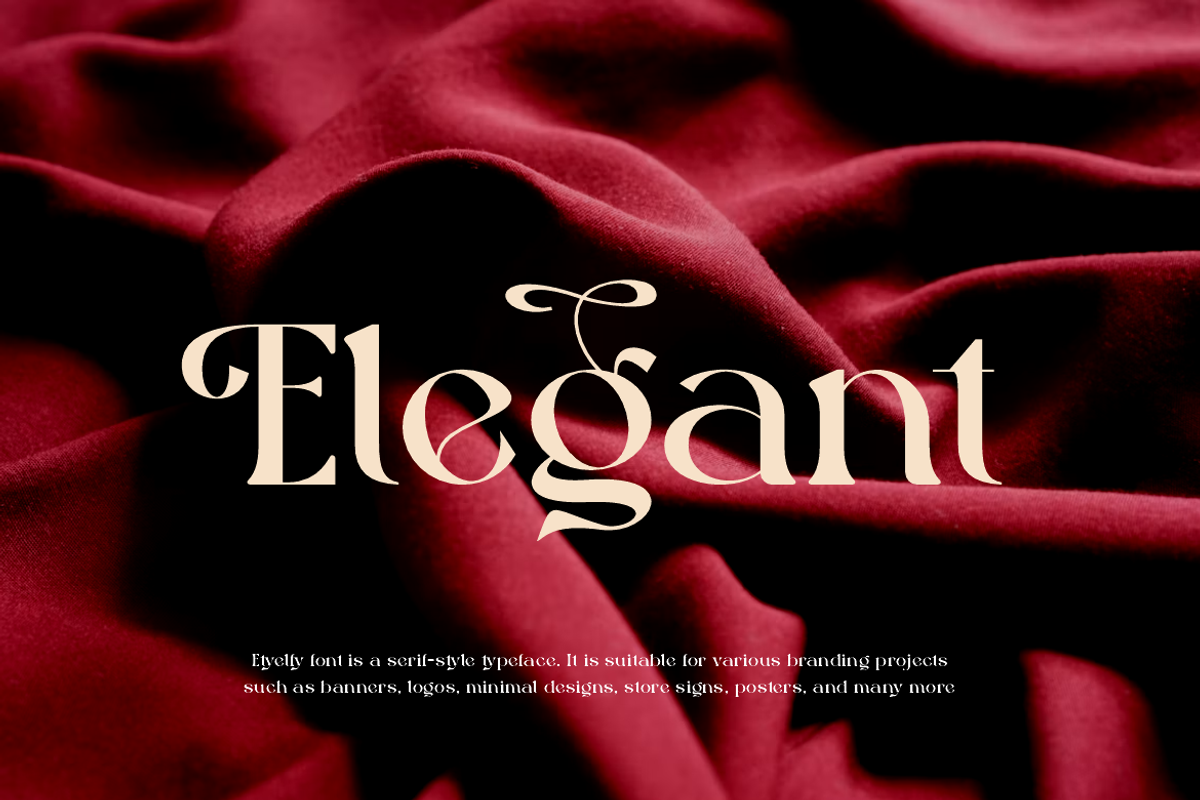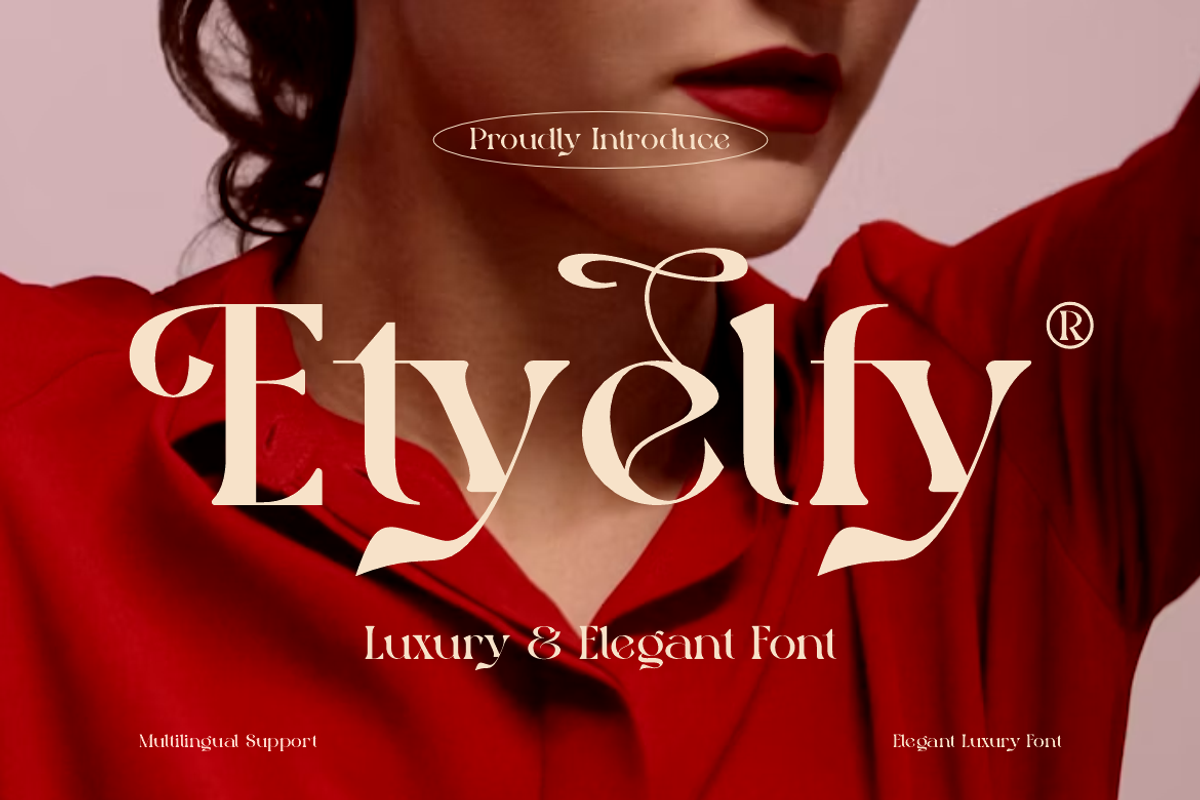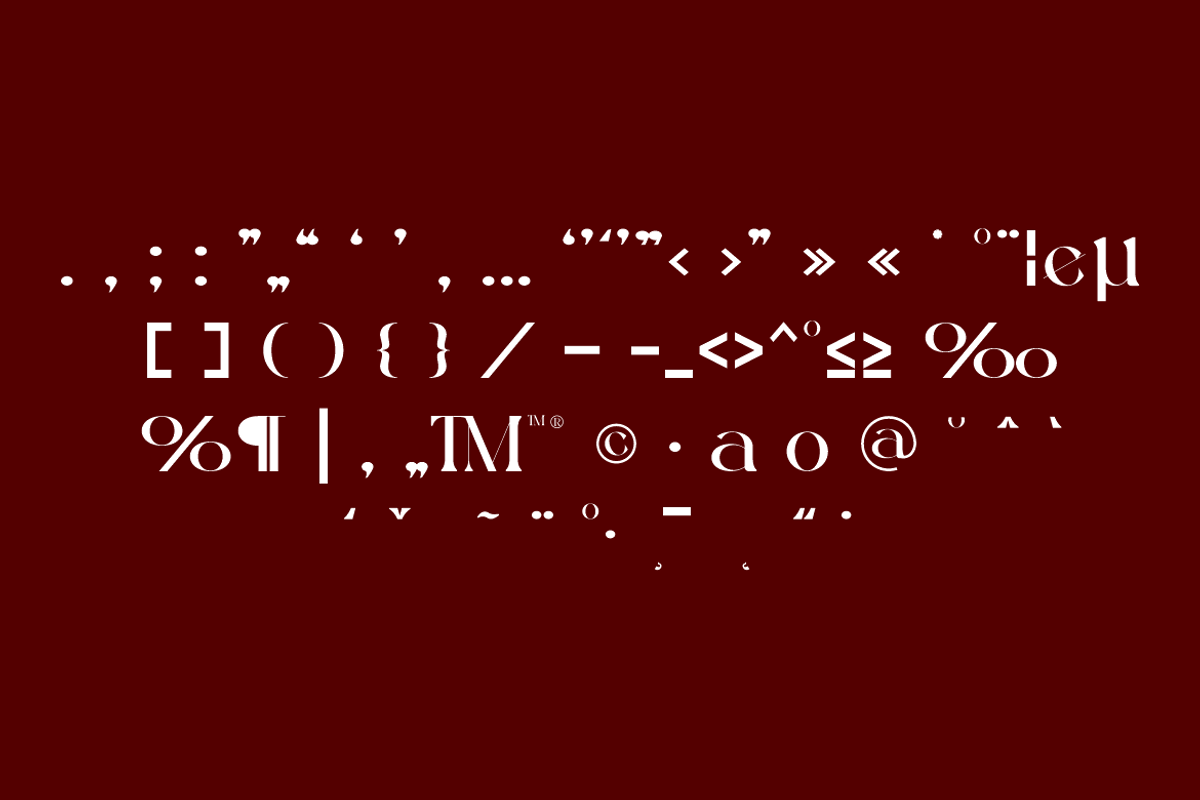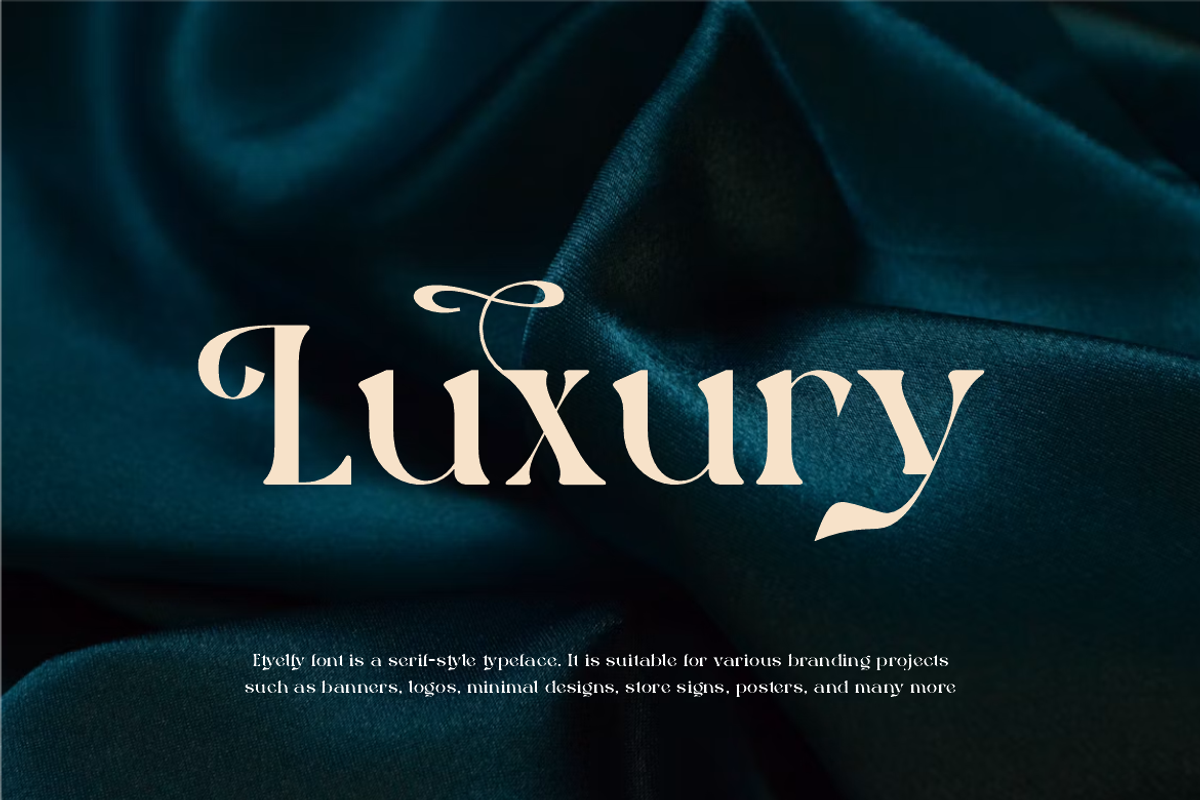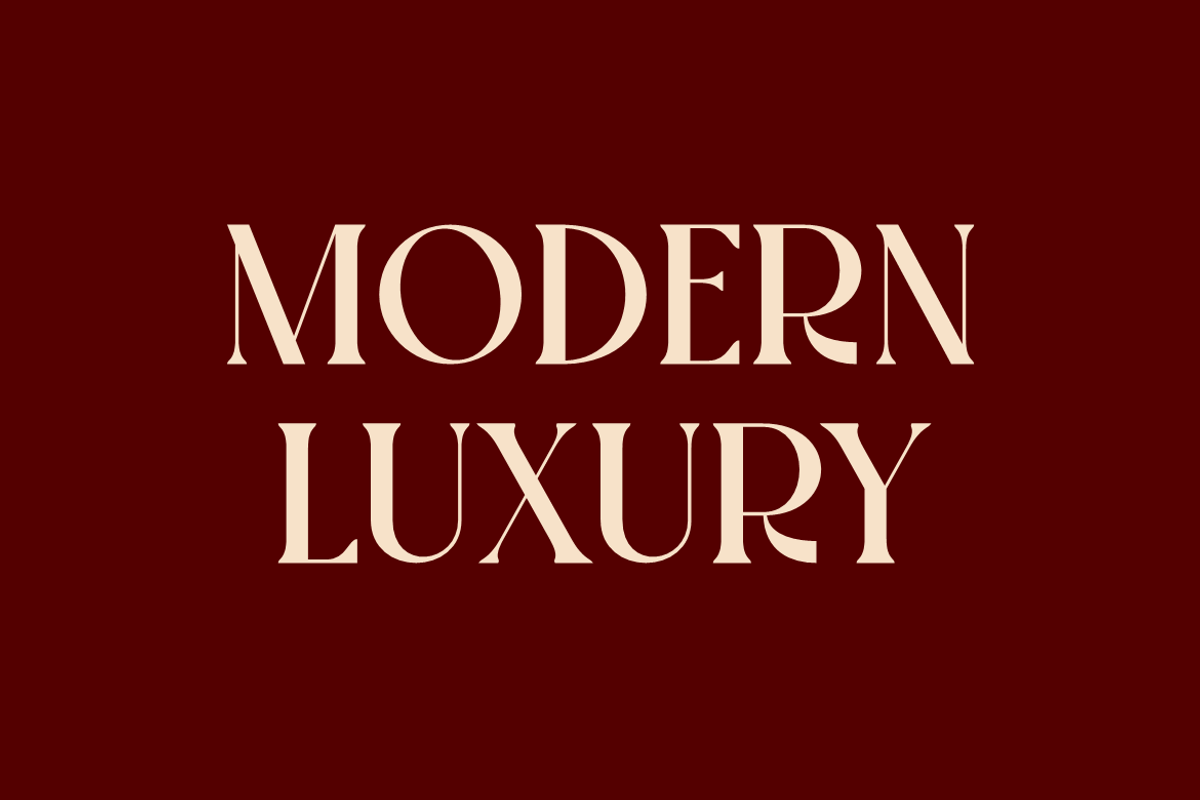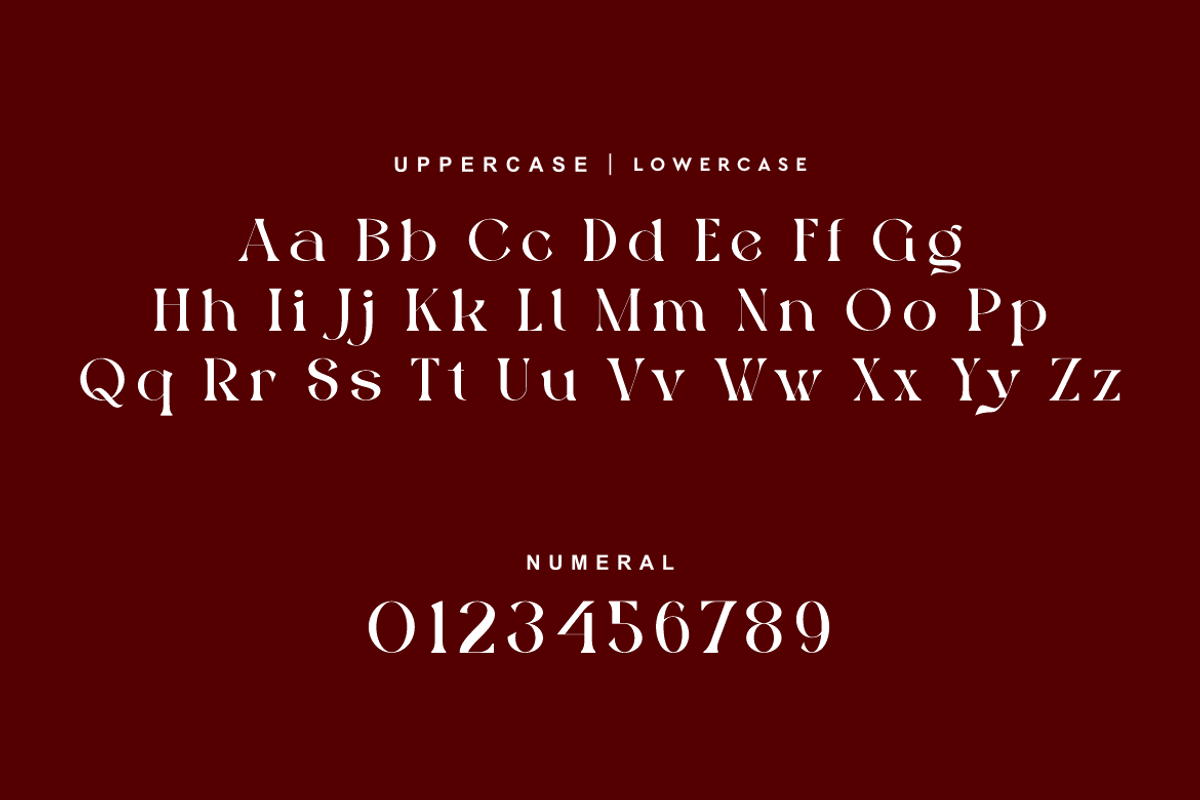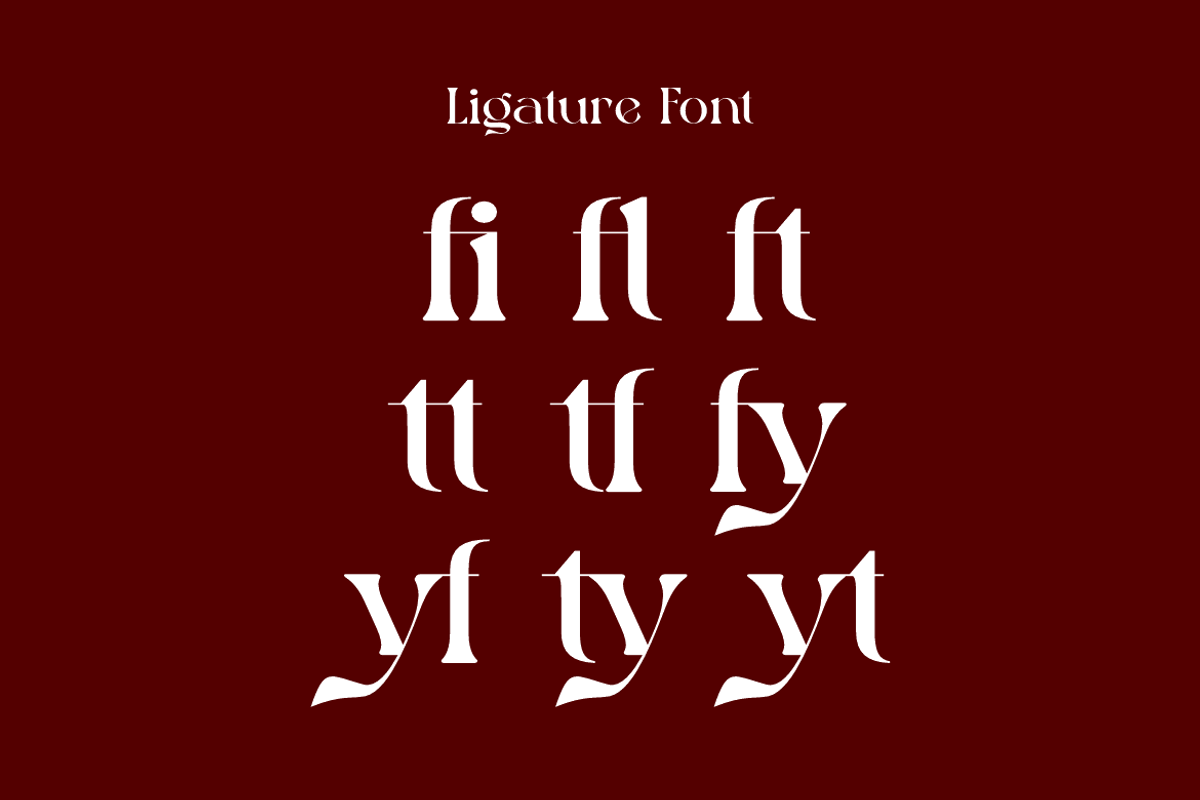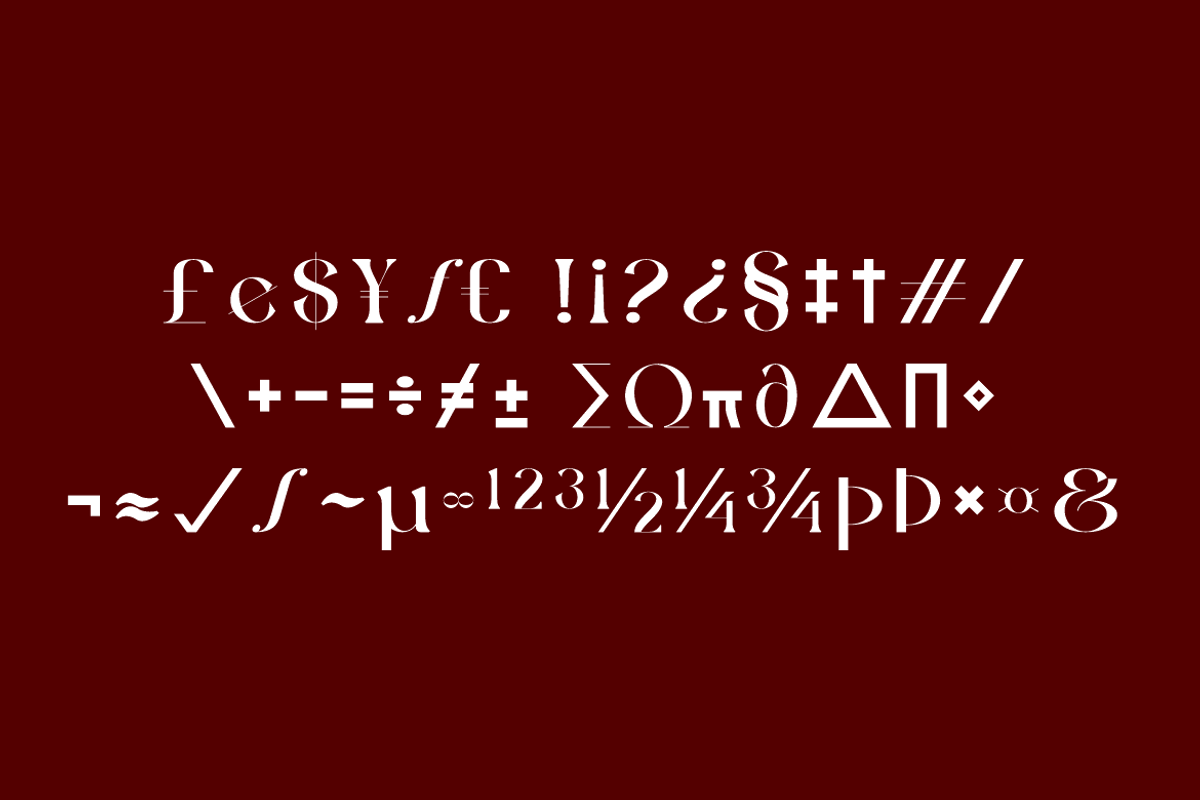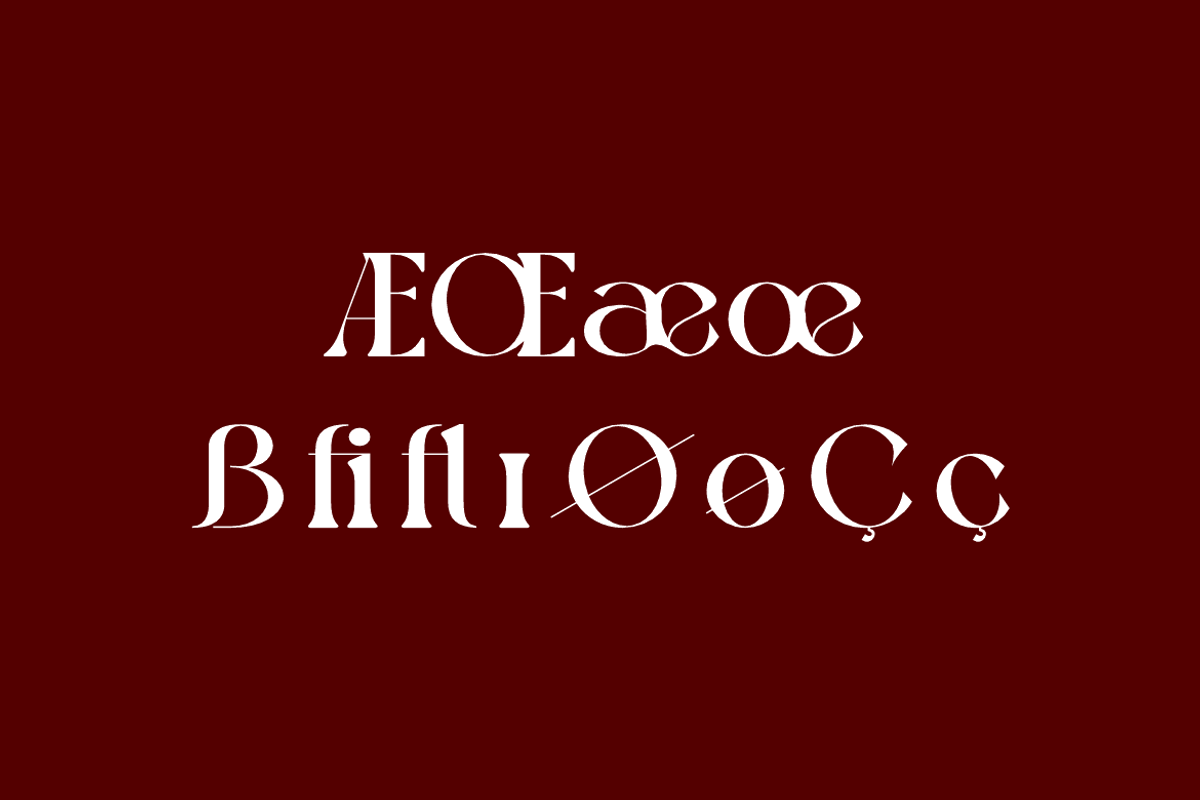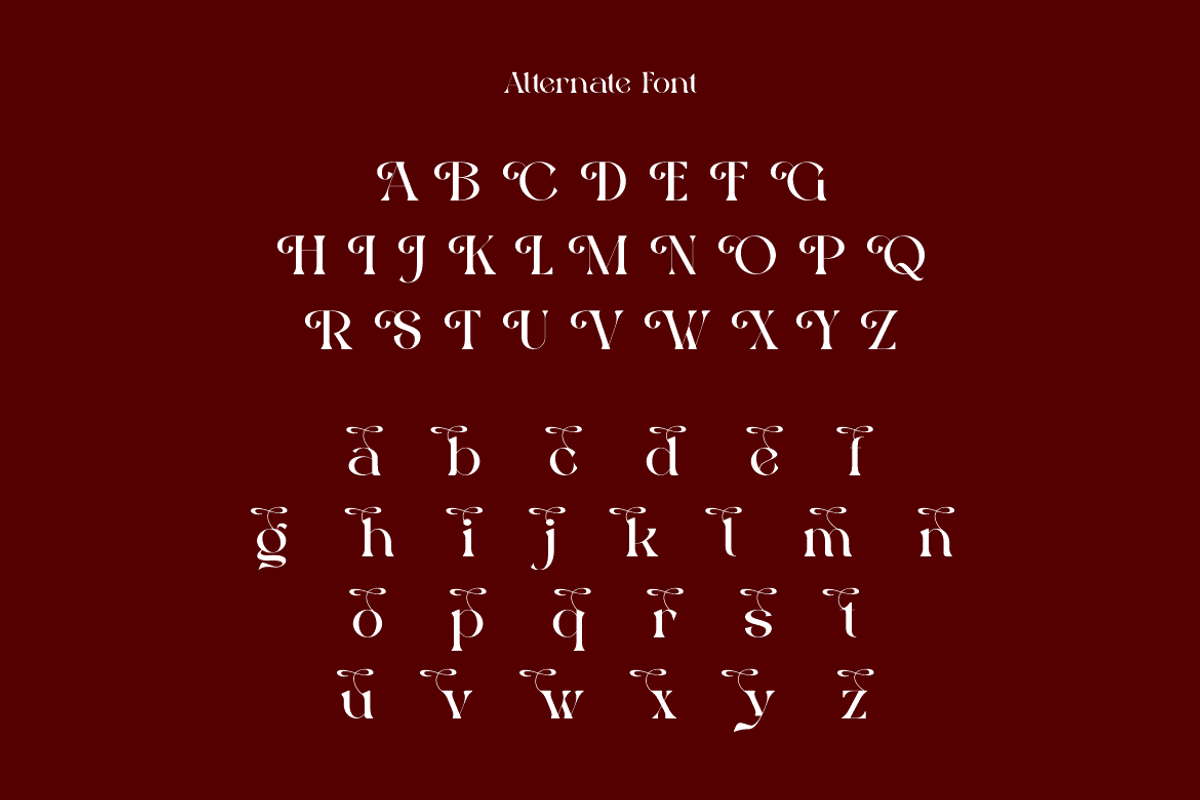
Etyelfy - Luxury Elegant Font
Etyelfy Font is a serif and authentic display typeface.
It’s perfect for various branding projects such as logos, modern designs,
and more. This font stands out beautifully in a wide range of contexts.